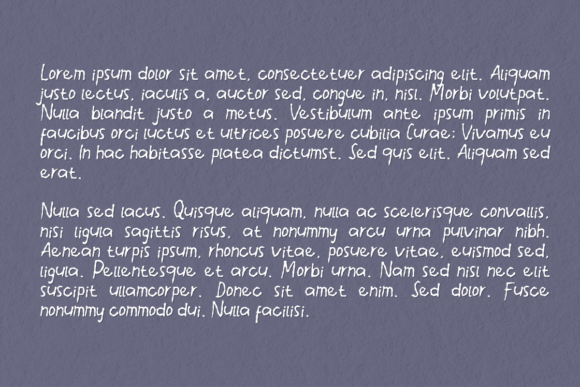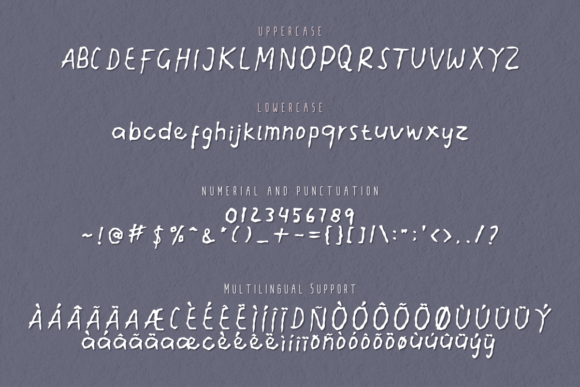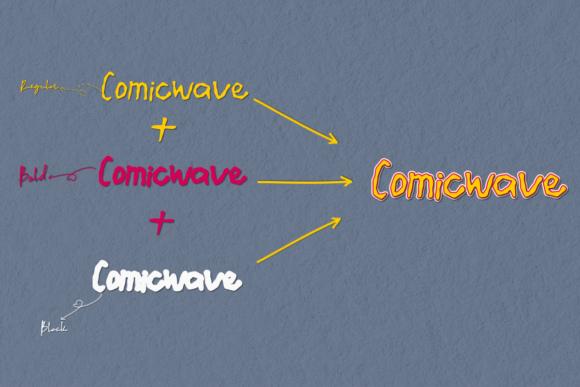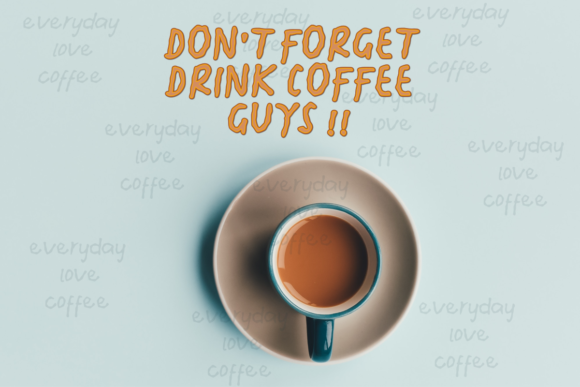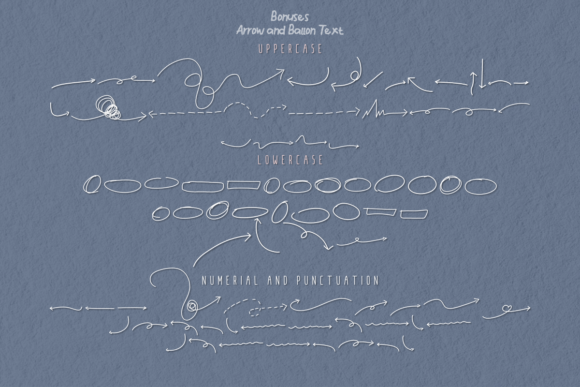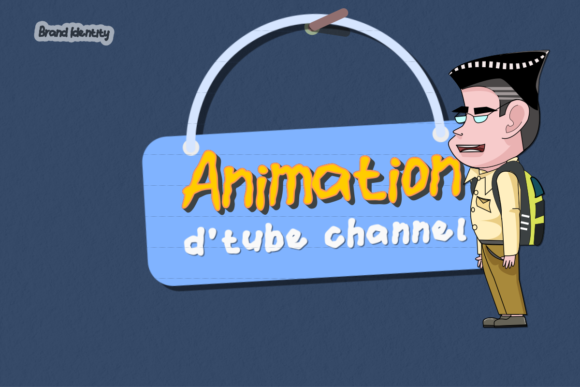
Introducing Comicwave Font: The Ultimate Choice for Comic and Cartoon Projects
Comicwave is, as the name suggests, a fun and cheerful display font that works well in any comic or cartoon project! If you’re a designer, artist, or crafter looking for a font that can add a touch of playfulness and excitement to your work, then Comicwave is the perfect choice. In this article, we’ll dive into the features, benefits, and uses of Comicwave Font, and explore why it’s a must-have for any creative project.
What is Comicwave Font?
Comicwave Font is a display font designed to capture the spirit of comics and cartoons. Its fun and cheerful design makes it perfect for use in titles, headings, and captions. The font features bold lines, vibrant colors, and a playful style that’s sure to grab attention. Whether you’re working on a comic book, cartoon series, or even a children’s book, Comicwave Font is the ideal choice.
Key Features of Comicwave Font
- Fun and Cheerful Design: Comicwave Font boasts a playful and energetic design that’s perfect for adding a touch of humor and excitement to your project.
- Bold Lines and Vibrant Colors: The font features bold lines and vibrant colors that make it stand out from the crowd.
- Highly Readable: Despite its playful design, Comicwave Font is highly readable, even at small sizes.
- Versatile: Comicwave Font can be used in a variety of projects, from comic books and cartoons to children’s books and posters.
Benefits of Using Comicwave Font
So, why should you choose Comicwave Font for your project? Here are just a few benefits of using this amazing font:
- Adds a Touch of Personality: Comicwave Font adds a touch of personality and whimsy to your project, making it more engaging and fun to read.
- Perfect for Kids and Adults Alike: The font’s playful design appeals to both kids and adults, making it perfect for projects that cater to a wide range of audiences.
- Increases Readability: The bold lines and vibrant colors of Comicwave Font make it highly readable, even at small sizes.
Uses of Comicwave Font
So, what can you use Comicwave Font for? The possibilities are endless! Here are a few ideas to get you started:
- Comic Books and Cartoons: Comicwave Font is perfect for use in comic books, cartoons, and animated series.
- Children’s Books: The font’s playful design makes it perfect for use in children’s books, including picture books, early readers, and activity books.
- Posters and Flyers: Comicwave Font can be used to create eye-catching posters and flyers for events, promotions, and products.
- Digital Media: The font can be used in digital media, including videos, animations, and video games.
Tips for Using Comicwave Font
Here are a few tips for using Comicwave Font in your project:
- Use it Sparingly: While Comicwave Font is fun and playful, it can be overwhelming if used too much. Use it sparingly to add emphasis and create visual interest.
- Pair it with Other Fonts: Comicwave Font can be paired with other fonts to create a unique and visually appealing design.
- Experiment with Colors: The font’s bold lines and vibrant colors make it perfect for experimenting with different color schemes and combinations.
In conclusion, Comicwave Font is a fun and cheerful display font that’s perfect for any comic or cartoon project. Its bold lines, vibrant colors, and playful design make it a must-have for designers, artists, and crafters. With its high readability, versatility, and ease of use, Comicwave Font is the ultimate choice for adding a touch of personality and whimsy to your project. So why wait? Download Comicwave Font today and start creating!